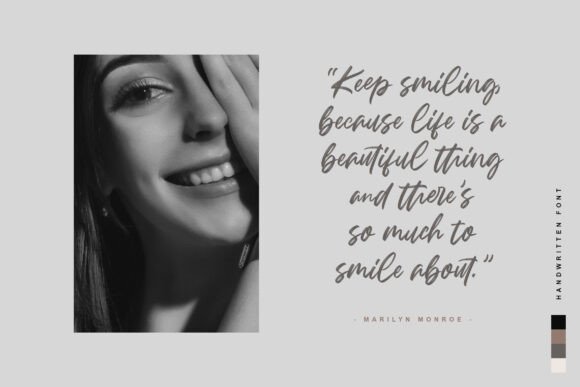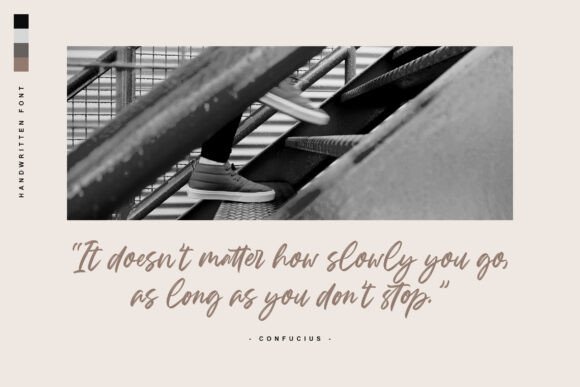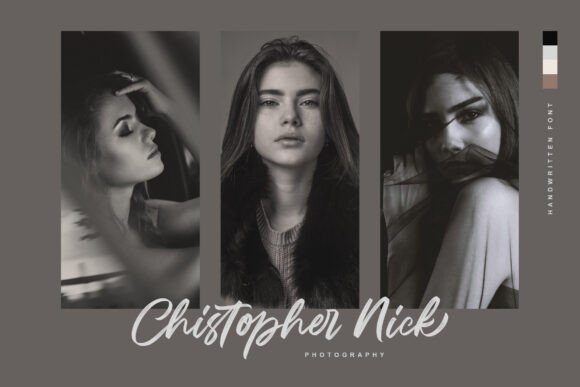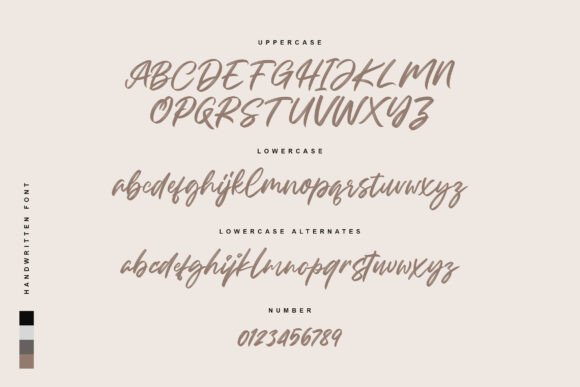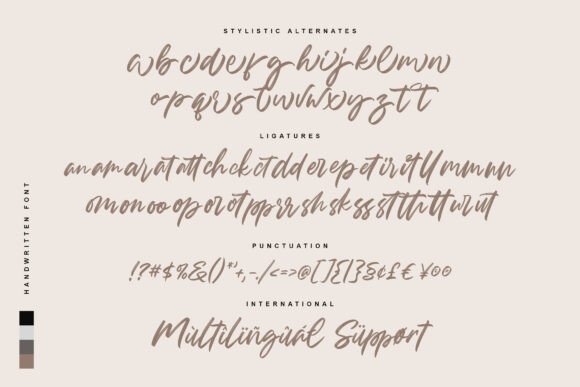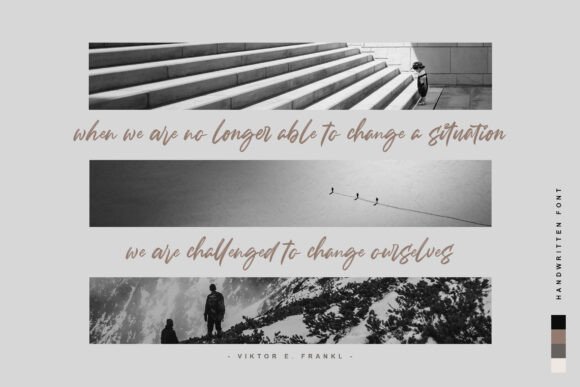
Introducing Batavie: The Unparalleled Handwritten Font for Modern Design
In the world of typography, a font can make all the difference in transforming a design from ordinary to extraordinary. Meet Batavie, a meticulously crafted handwritten font that boasts a distinctive scratch style, perfect for adding a touch of personal allure to various design projects. Whether you’re a designer, crafter, or simply someone who appreciates the art of typography, Batavie is sure to captivate you with its unique charm.
The Birth of Batavie: A Labor of Love
Batavie is more than just a font – it’s a work of art that has been carefully crafted to bring a sense of warmth and intimacy to modern design. Its creator has poured their heart and soul into designing a font that is not only visually stunning but also versatile and functional. The result is a font that is perfect for a wide range of applications, from greeting cards and wedding invitations to apparel design and photography logos.
What Sets Batavie Apart
So, what makes Batavie stand out from the crowd? For starters, its spontaneous handwritten ligatures give it a distinctly personal touch, making it perfect for designs that require a human touch. The refined swashes that introduce and conclude lowercase letters add an extra layer of elegance, while the characteristic heart connections between letters create a sense of continuity and flow.
Endless Design Possibilities with Batavie
Batavie’s versatility is one of its most appealing features. Here are just a few examples of how you can use this incredible font to elevate your designs:
- Greeting Cards and Wedding Invitations: Add a touch of personal allure to your cards and invitations with Batavie’s elegant, handwritten script.
- Apparel Design: Give your clothing and accessories a stylish edge with Batavie’s unique stroke, perfect for creating eye-catching designs that stand out.
- Photography Logos and Watermarks: Add an artistic touch to your photography logos and watermarks with Batavie’s distinctive scratch style, giving your brand a professional and creative edge.
- Web Design: Bring a sense of chic authenticity to your website with Batavie, perfect for creating modern and stylish web designs that engage and inspire.
Batavie: The Perfect Font for Designers and Crafters
Whether you’re a professional designer or a crafter looking for a unique font to add to your collection, Batavie is the perfect choice. Its exclusive characteristics make it an ideal font for:
- Stationery Design: Create beautiful stationery, including notecards, journals, and planners, with Batavie’s elegant script.
- DIY Projects: Add a personal touch to your DIY projects, such as handmade cards, gift tags, and scrapbooking, with Batavie’s distinctive style.
- Branding and Identity: Establish a strong brand identity with Batavie, perfect for creating logos, business cards, and letterheads that stand out.
In conclusion, Batavie is a game-changing font that is sure to transform your designs from ordinary to extraordinary. Its unique blend of elegance, style, and personality makes it the perfect choice for designers and crafters looking to add a touch of sophistication and whimsy to their work. With Batavie, you can create stunning designs that engage, inspire, and leave a lasting impression. So why wait? Venture into the extraordinary with Batavie and discover a world of limitless design possibilities.